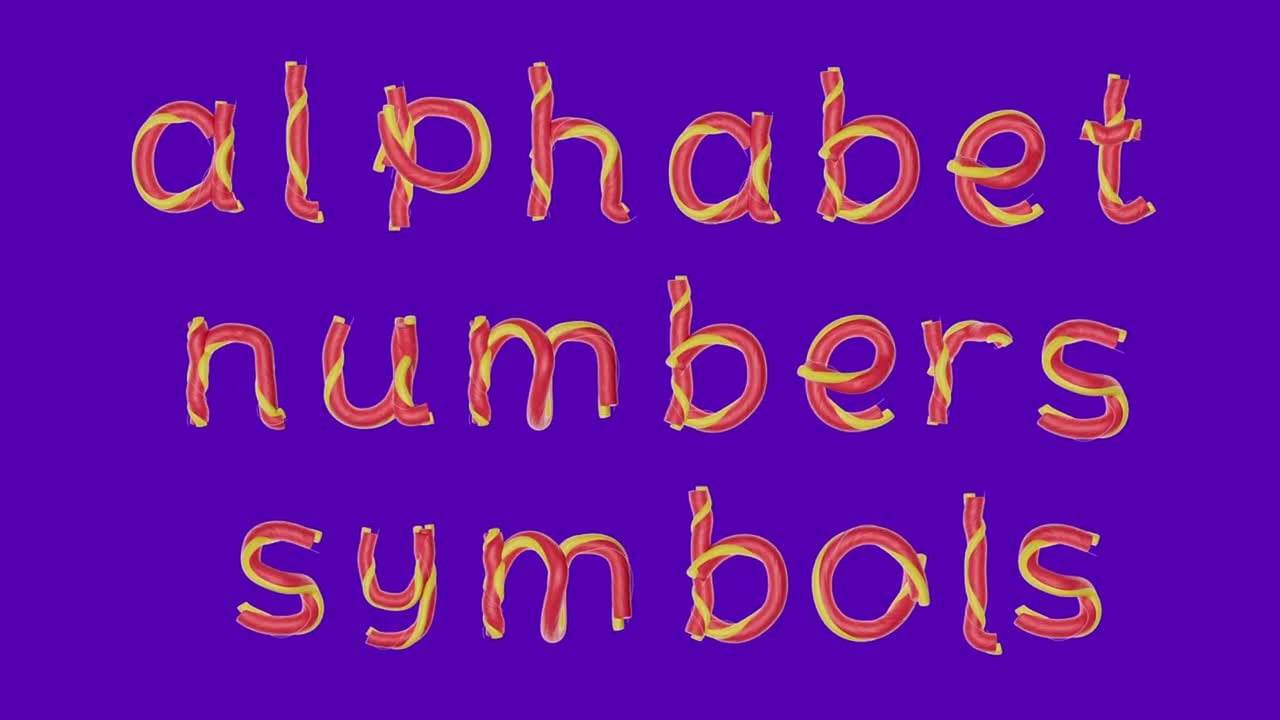
Pack Of 53 Red-Yellow Jelly Typefaces On Alpha
Transform your projects with 53 vibrant red-yellow jelly text animations featuring full alpha transparency.
This comprehensive motion graphics pack delivers a complete collection of bouncy, three-dimensional typeface animations. Each clip showcases the playful jelly aesthetic with smooth, eye-catching movement perfect for adding personality to your creative work.
The pack includes animated versions of the complete alphabet, numbers, and essential symbols, all rendered with transparent alpha channels for seamless integration into any project background or composition.